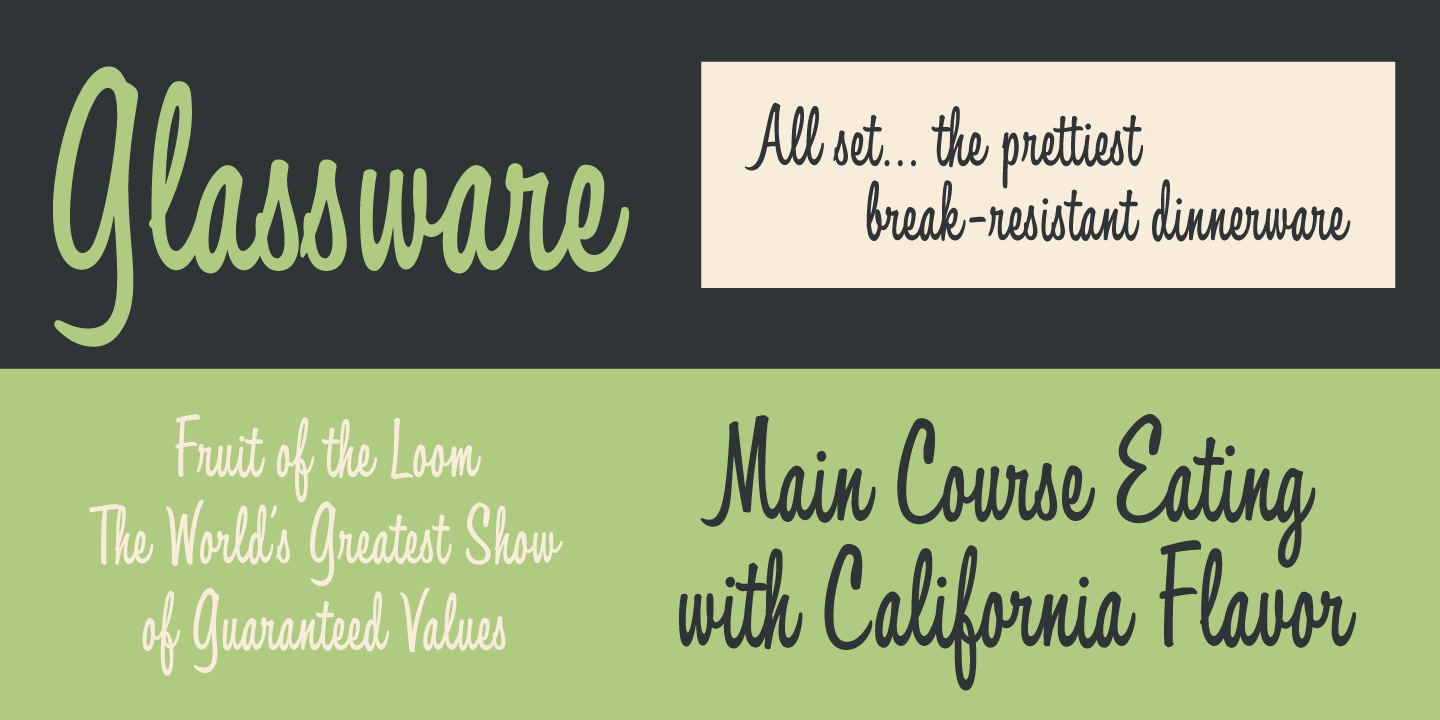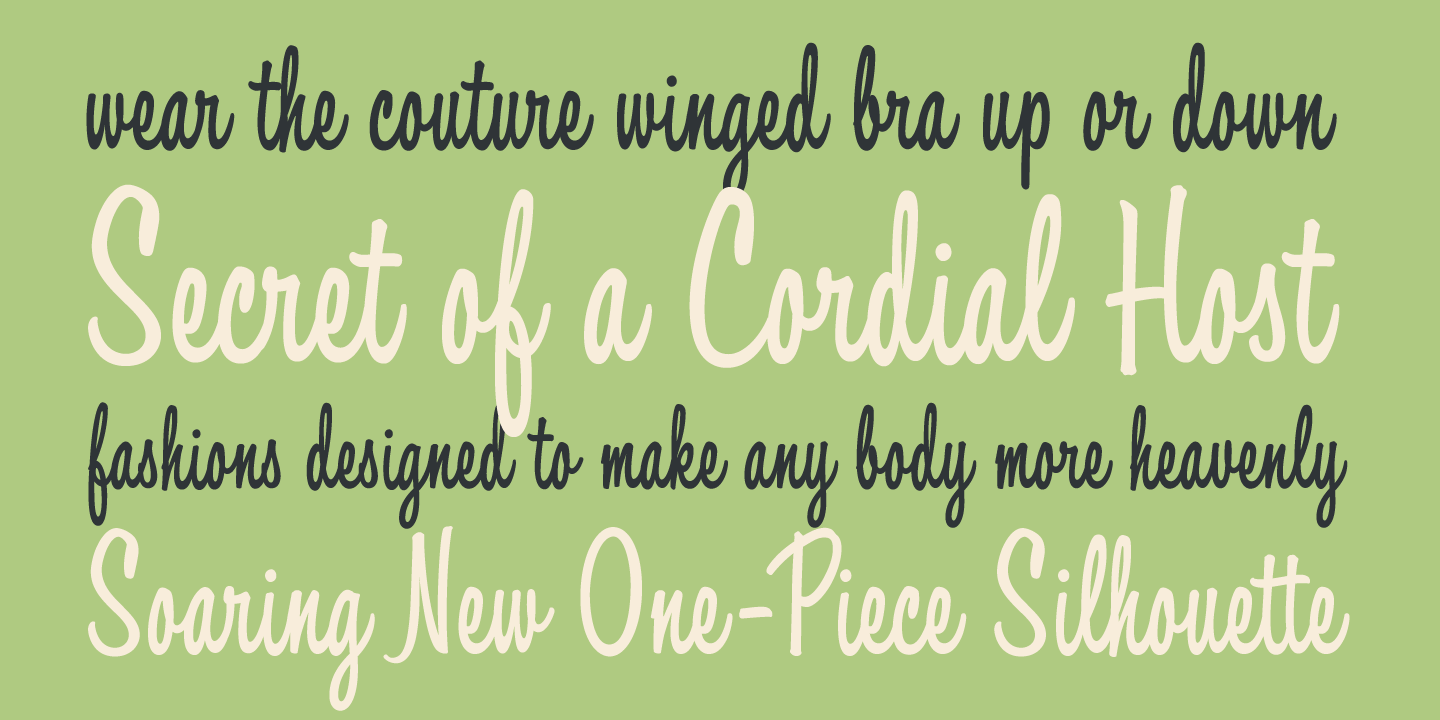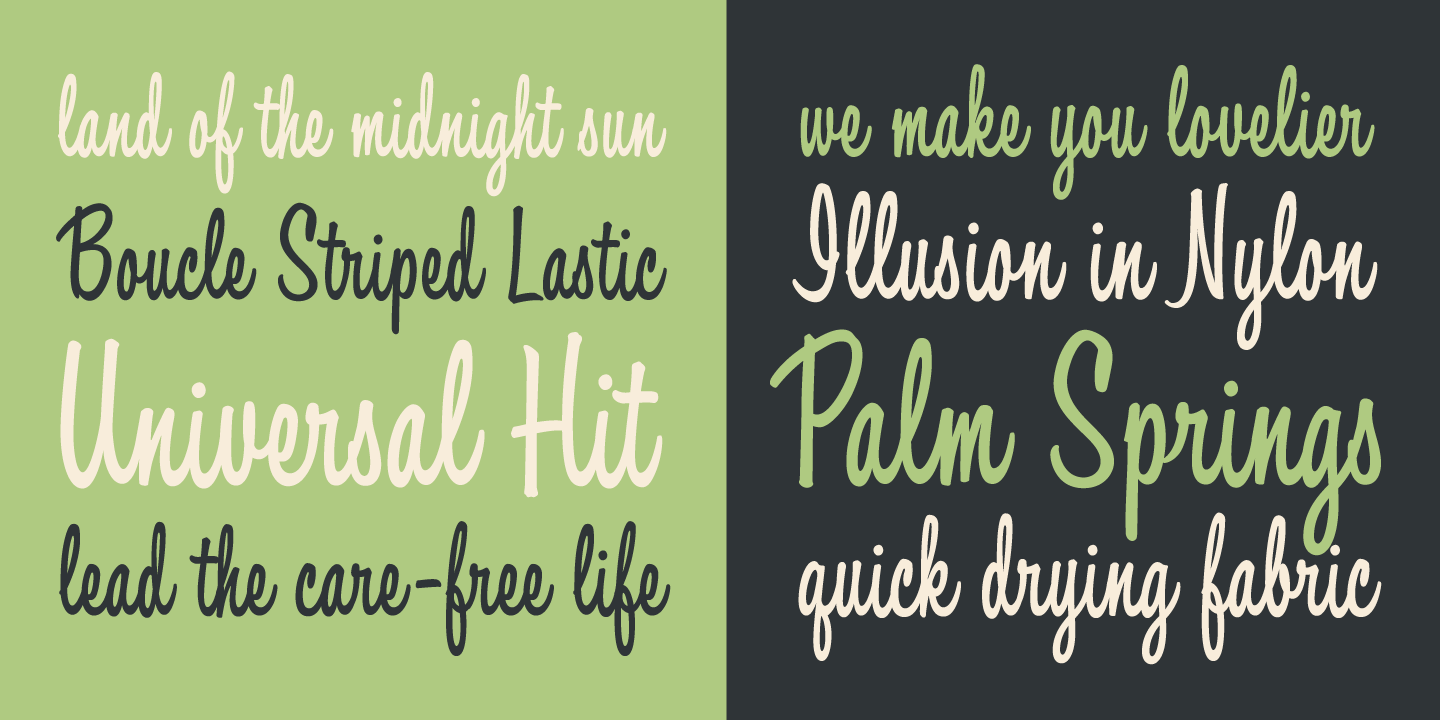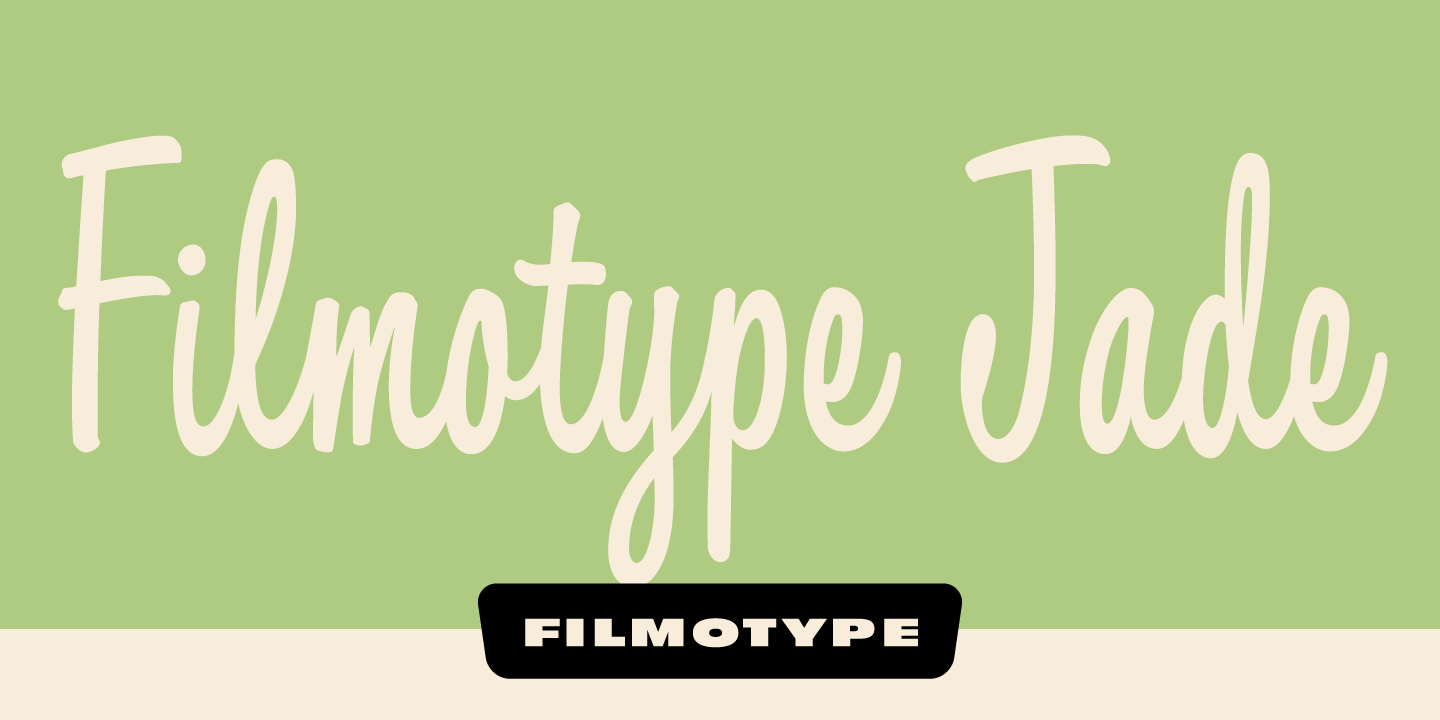
Filmotype Jade
About Filmotype Jade
Filmotype Jade is unique as one of a few bold condensed upright scripts in its library with its smooth flowing handwritten style originally released by Filmotype in 1955 to expand its Scripts category. Filmotype Jade was developed from the original font…